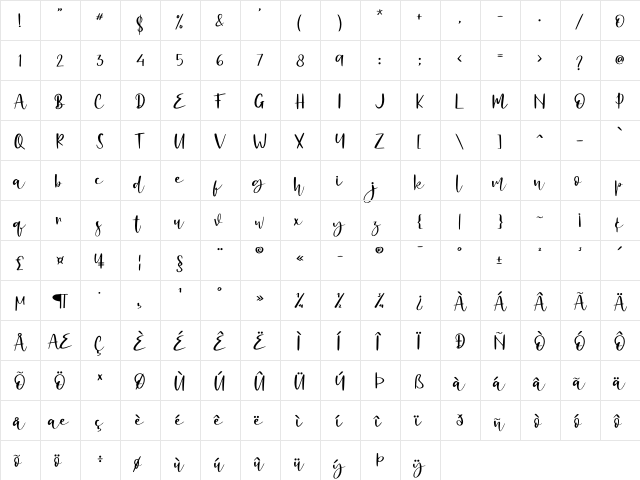
Alligattory - Personal Use Regular
| Designer | Sarwo Edhi Prayitno |
Design Context for Alligattory - Personal Use Typeface
Alligattory - Personal Use is a composed and adaptable typeface that performs quietly and consistently across a wide range of design contexts.